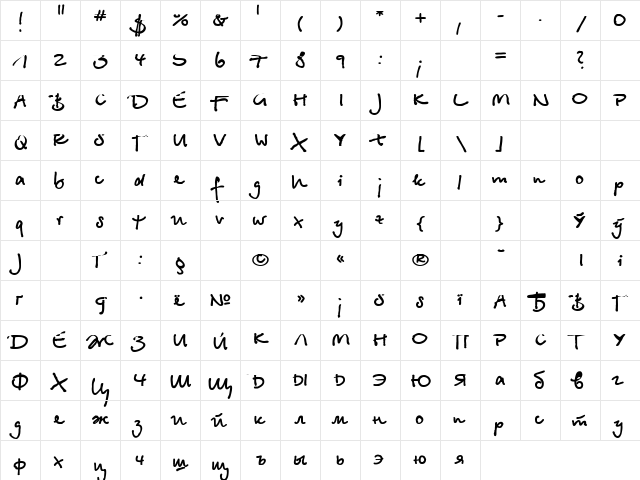
Betina Script Rus Bold Font Preview
Design Context for Betina Script Rus Typeface
Betina Script Rus brings a calligraphic fluidity to the page — its connecting strokes and expressive curves give it an unmistakably human quality. The heavy weight commands attention and anchors typographic hierarchies.